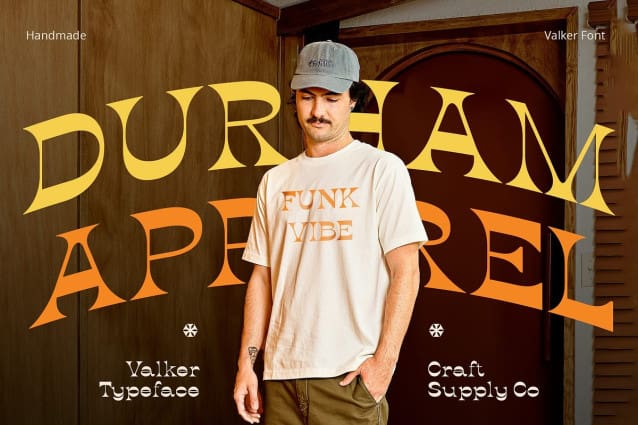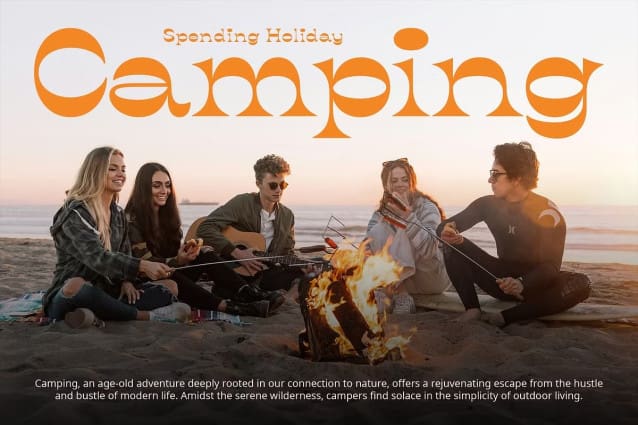
Valker Font
Valker Font: A Blast from the Past. Bold and Funky Design Valker Font features a daring reverse contrast serif design that draws inspiration from the vibrant styles of the 80s and 90s. Its retro aesthetic exudes funkiness and boldness, making it an ideal choice for projects seeking to capture the spirit of those iconic decades.
Nostalgic Vibes With its unique reverse contrast style, This Retro Font evokes nostalgia for the iconic design trends of past decades. Its playful charm transports viewers back to the funky era of neon lights and cassette tapes, adding a touch of retro flair to any creative endeavor.
Versatile Application Designed for versatility, This Retro Font is suitable for a wide range of creative projects. From posters and album covers to branding and packaging, its retro-inspired look adds a distinctive touch to any design, ensuring that your message stands out with a nostalgic twist.
Eye-Catching Retro Typography Stand out from the crowd with This Retro Font’s eye-catching typography. Its reverse contrast style commands attention and lends a retro-cool vibe to any project. Get ready to make a statement and infuse your designs with a dose of funky nostalgia!